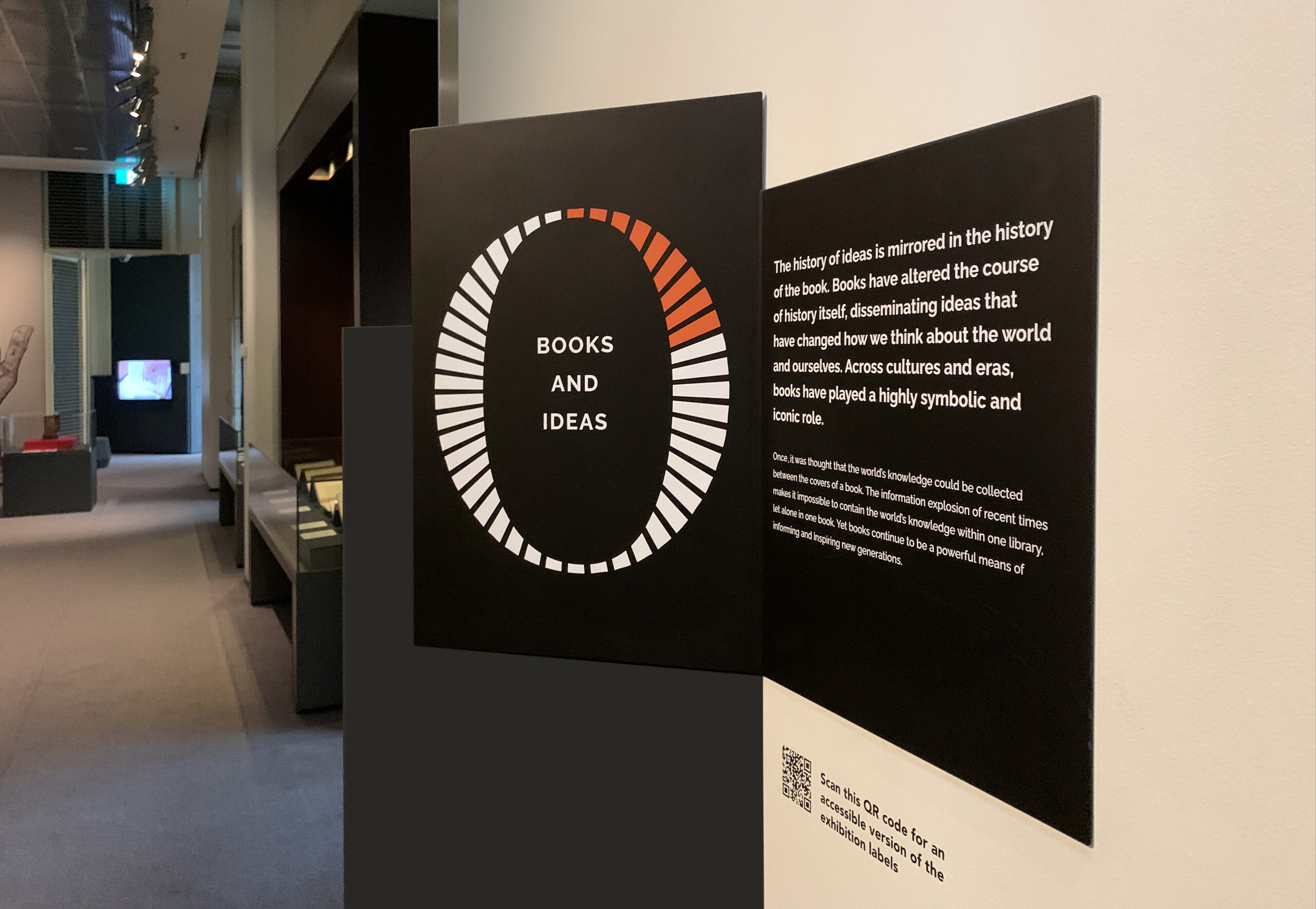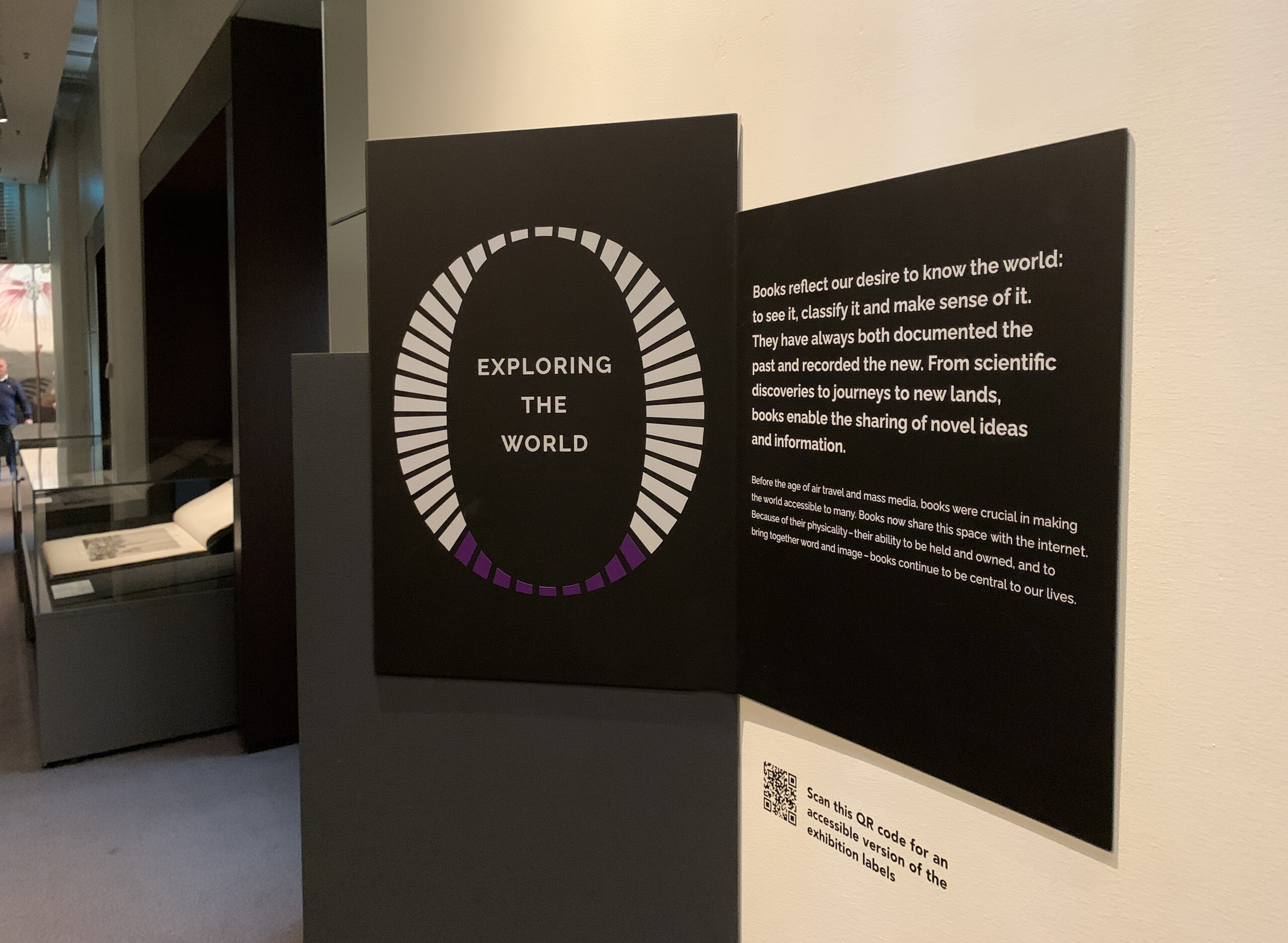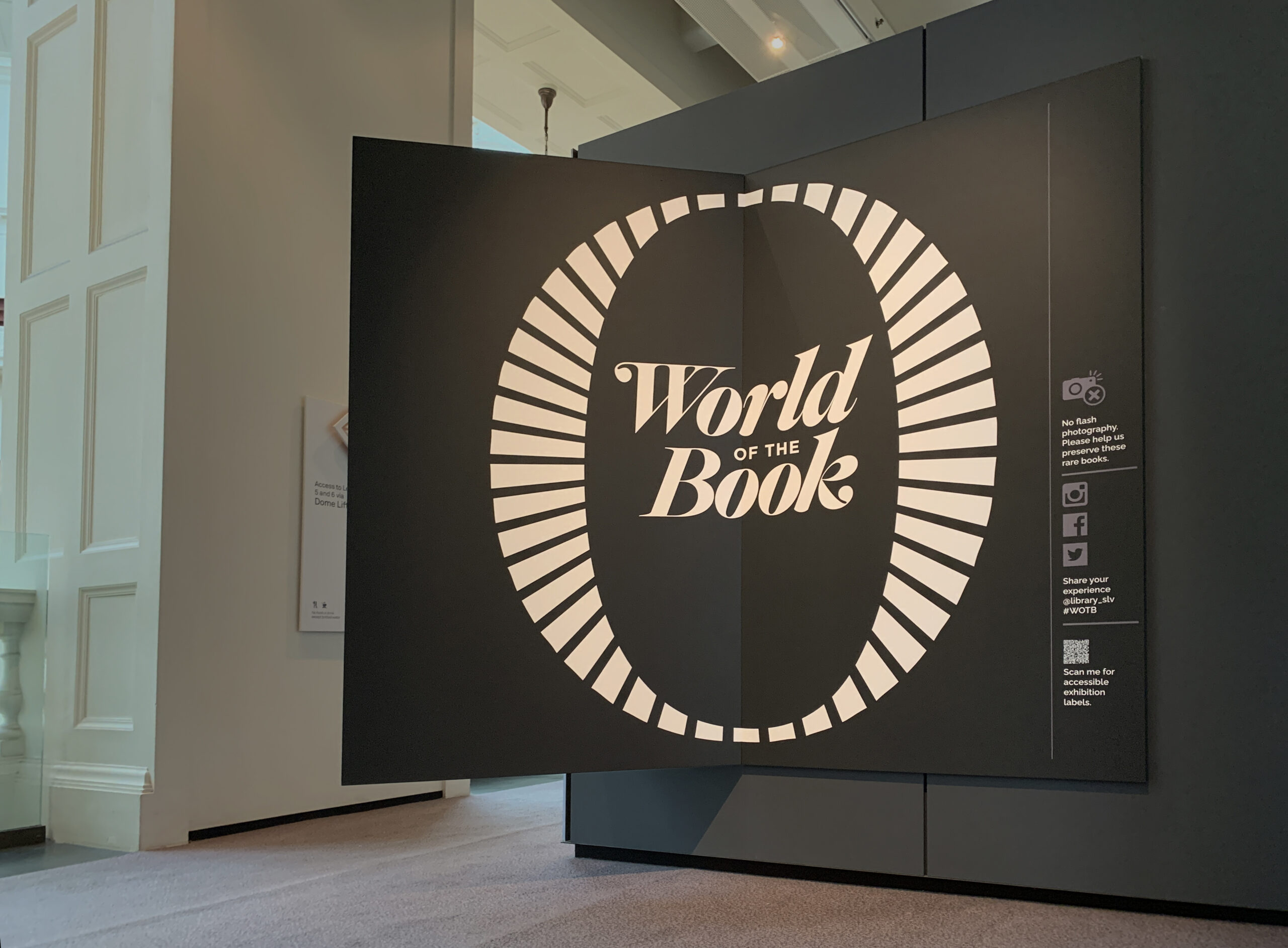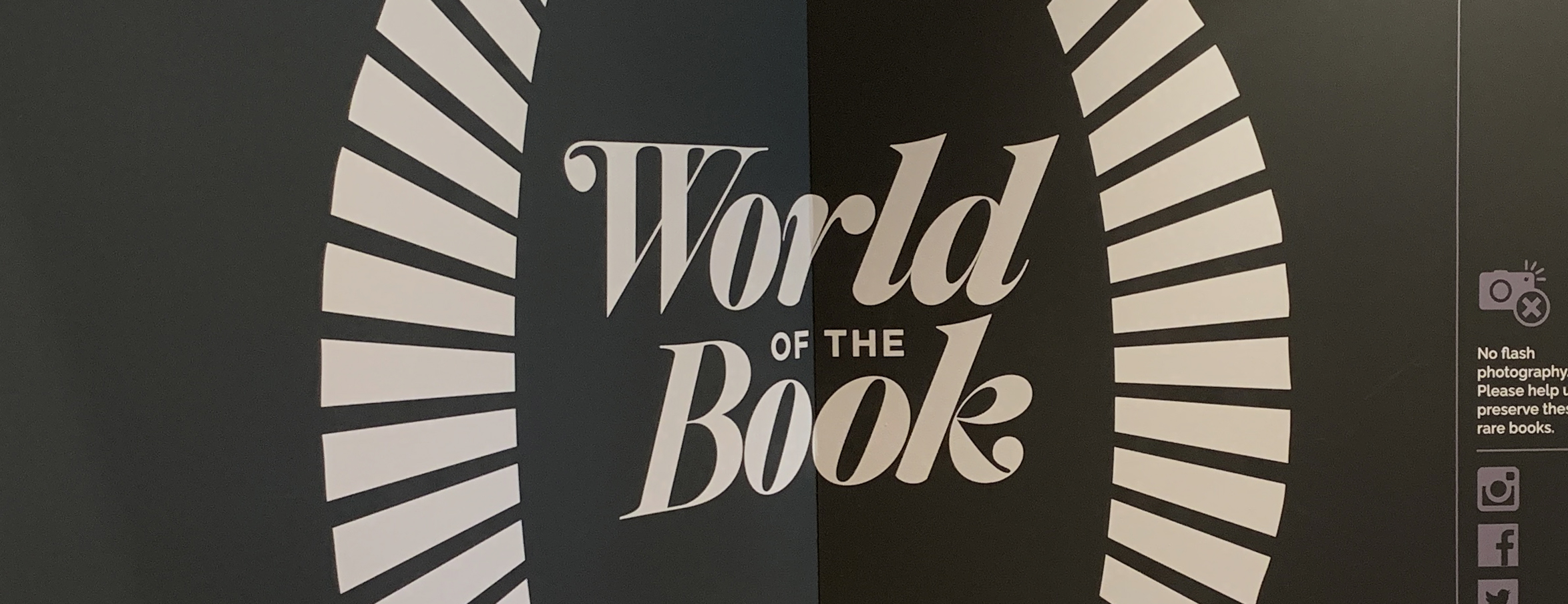
World of the Book
A major exhibition of the State Library of Victoria’s extraordinary collections.
Encompassing everything from Egyptology to Frankenstein, Alice in Wonderland to ancient scripts, World of the Book required a strong and systematic typographic identity system. The design is based on 45 page-like elements which work as a navigational system throughout the five parts of the exhibition. The silhouette of the design powerfully echoes the circular dome galleries in which the exhibition is held.
Books and Imagination. Photograph: Christian Capurro
Egyptology Room.
Shadowography Section.